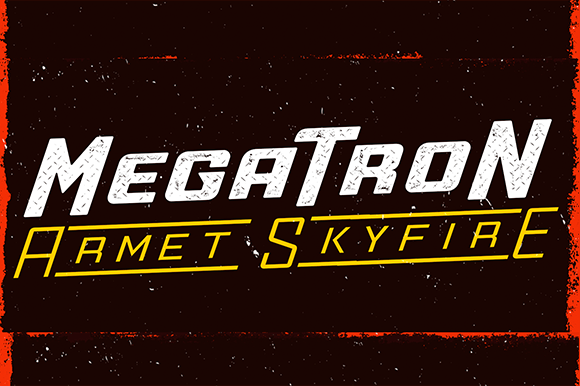
ToreTtO is a cool display font family. Typography inspired 100% in action, adventure, cars. It contains different weights and alternatives to suit all your creative designs!